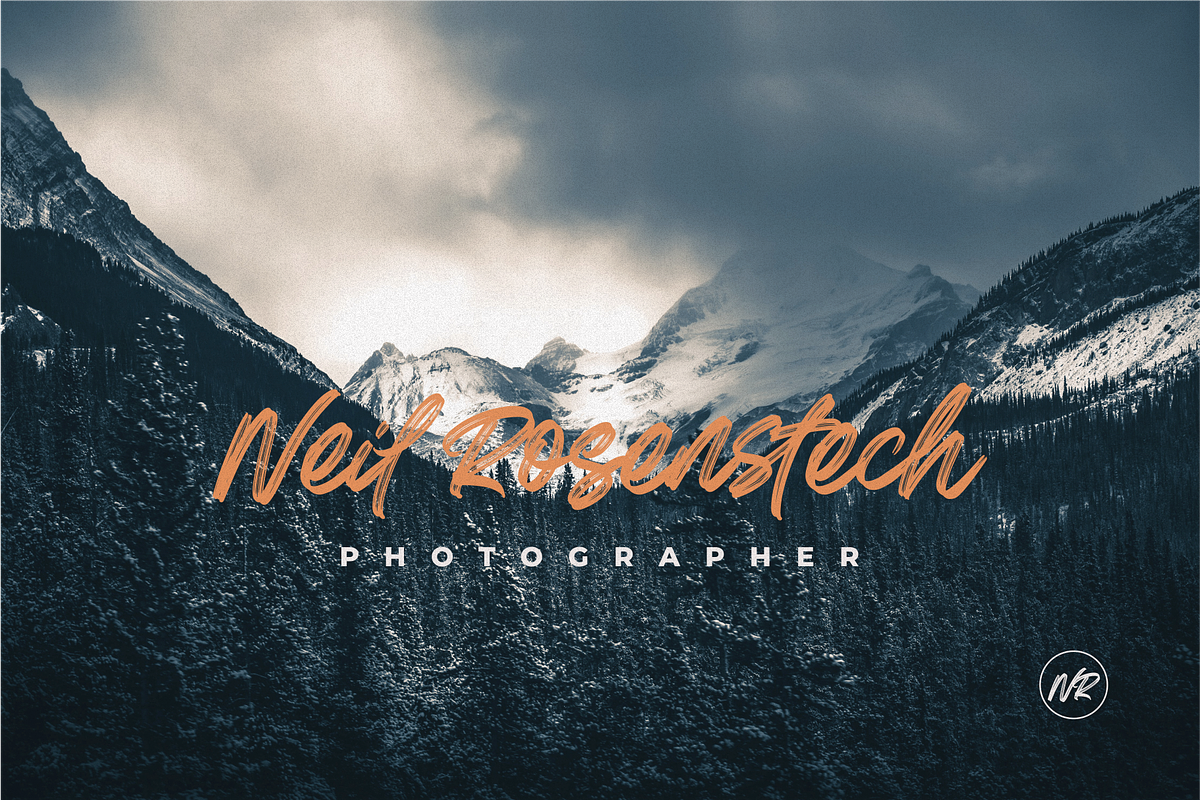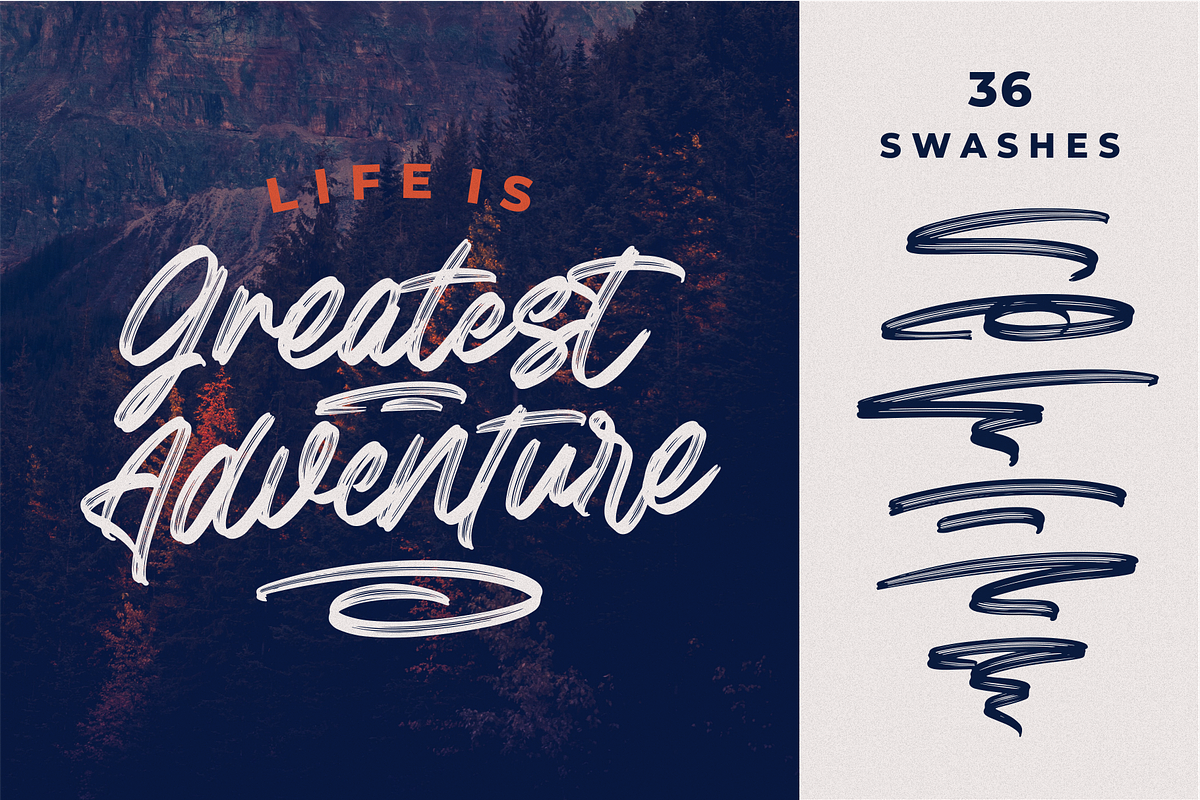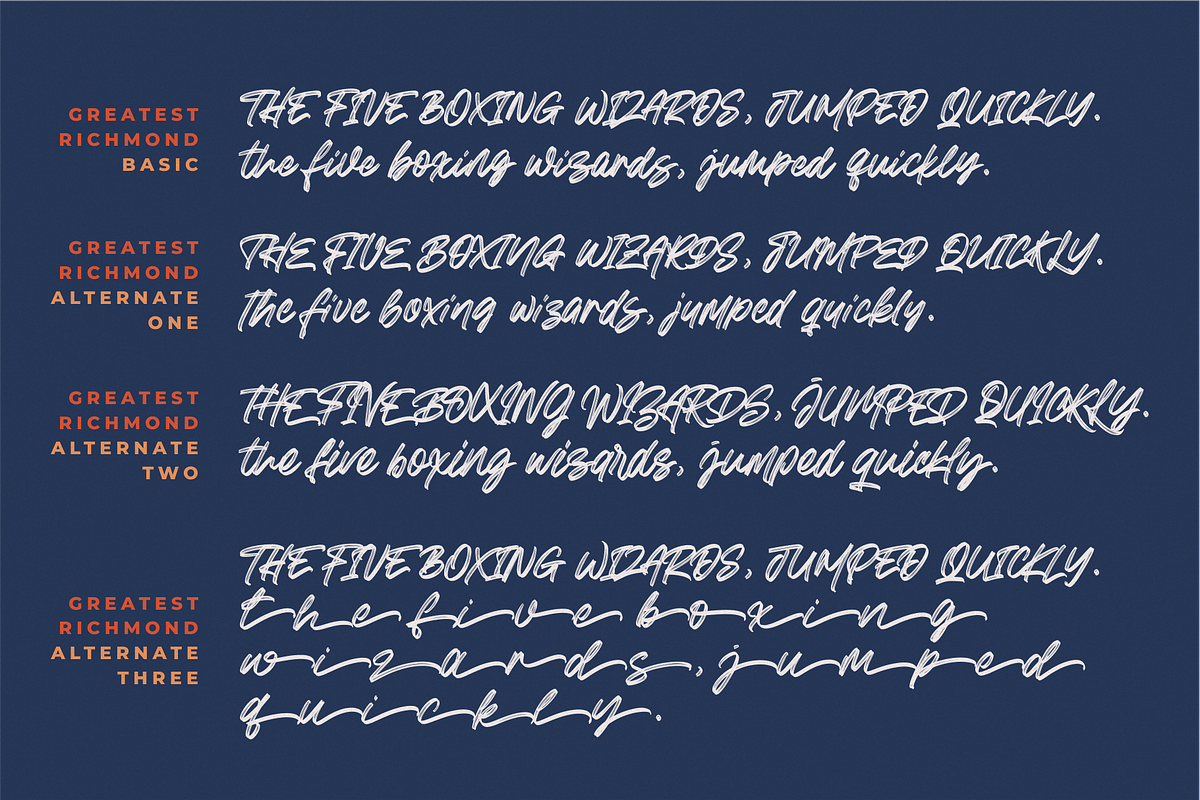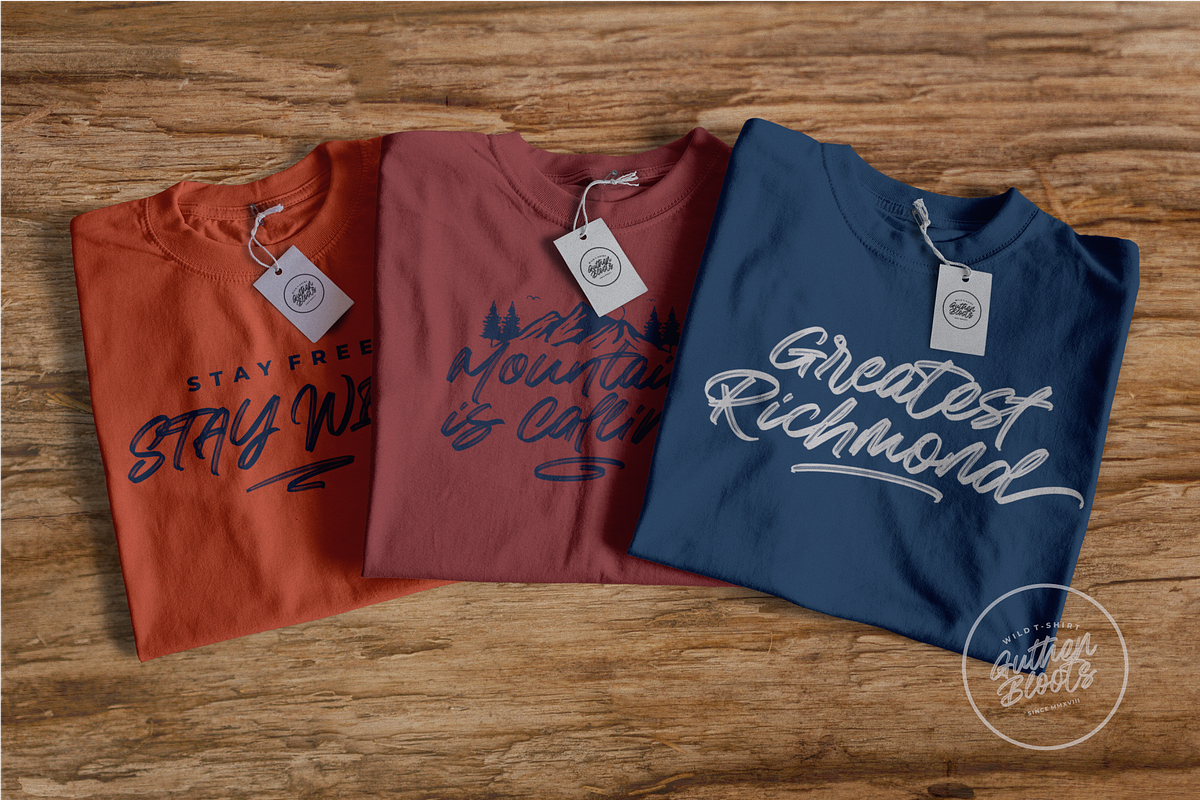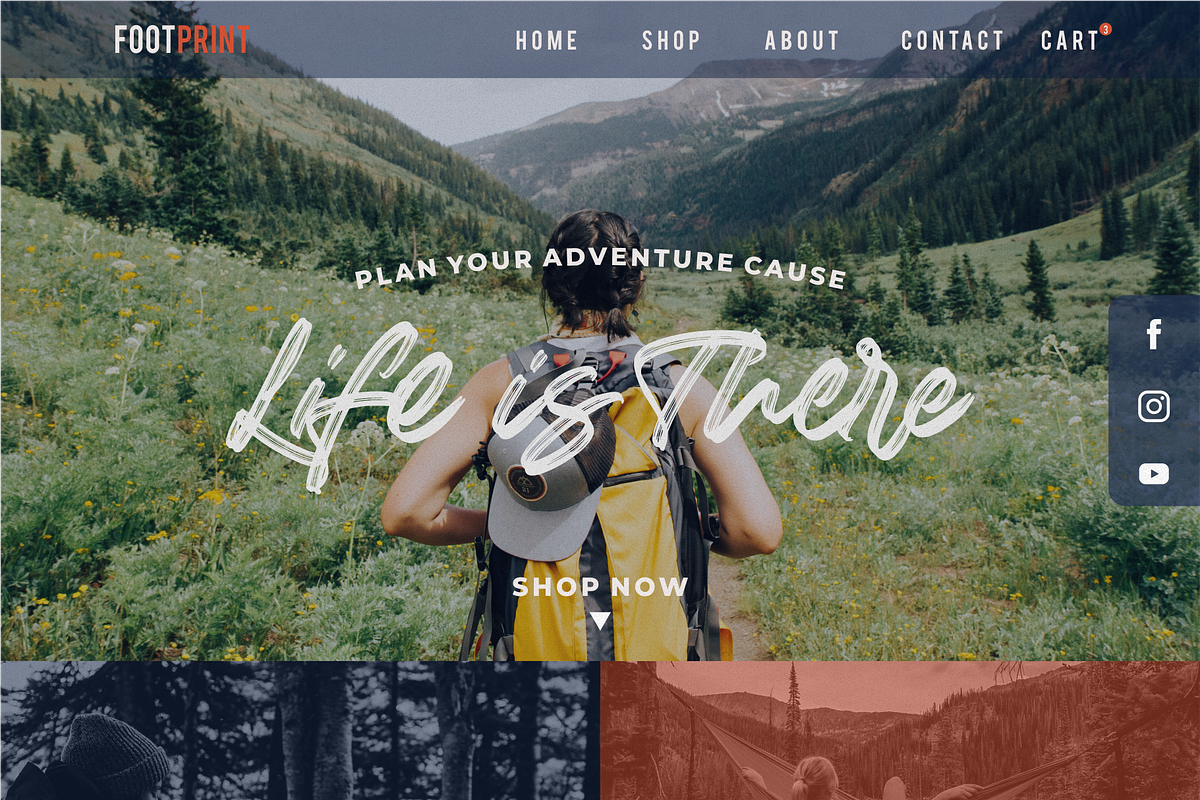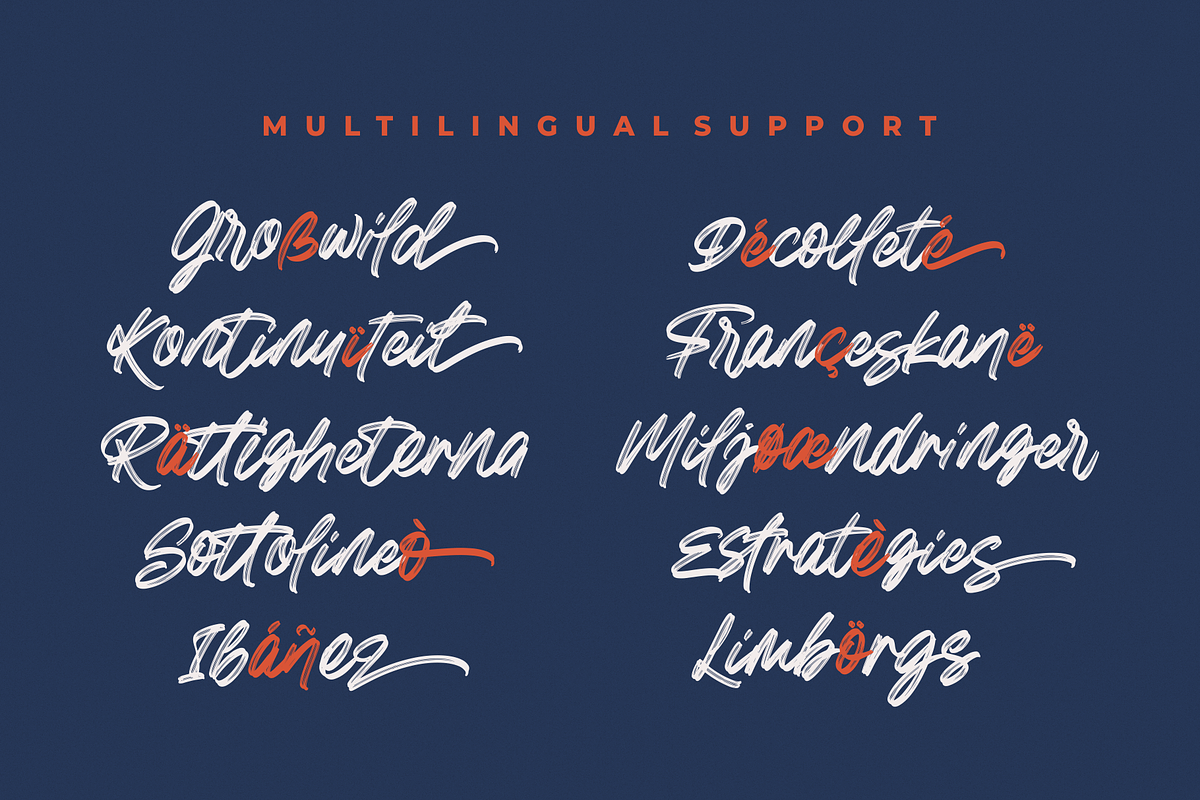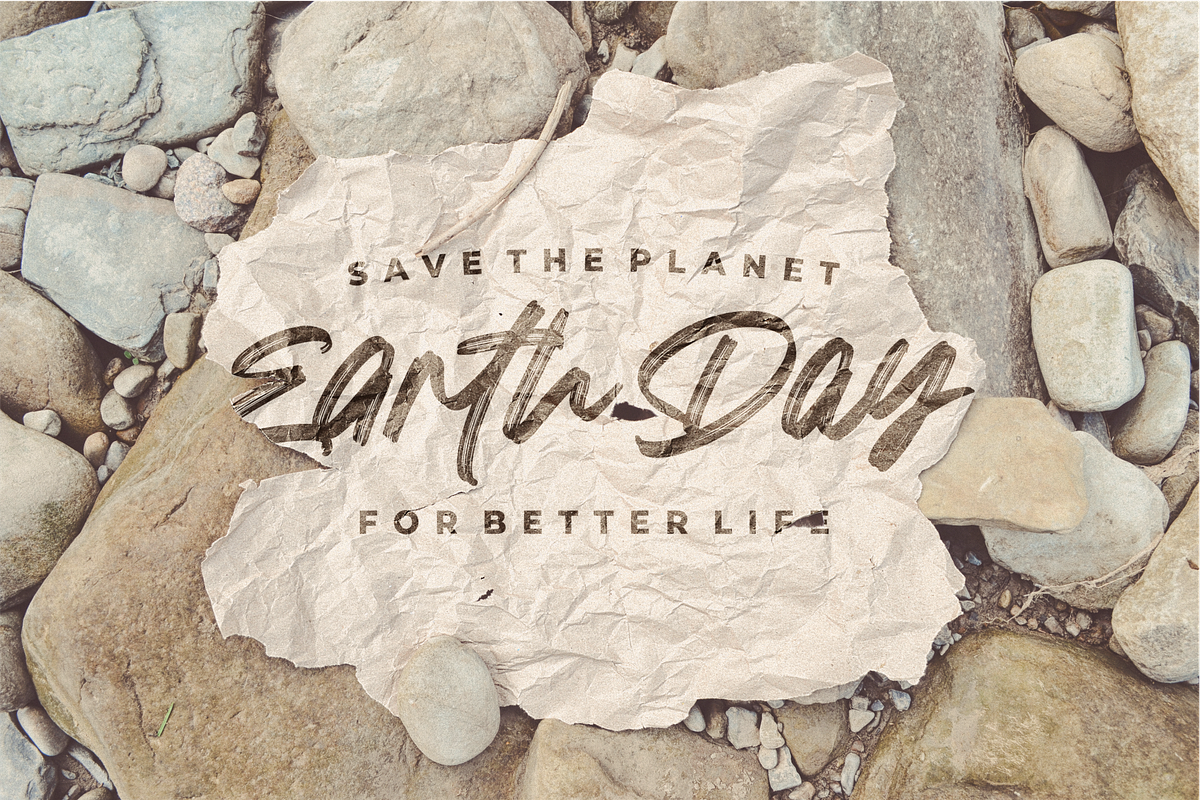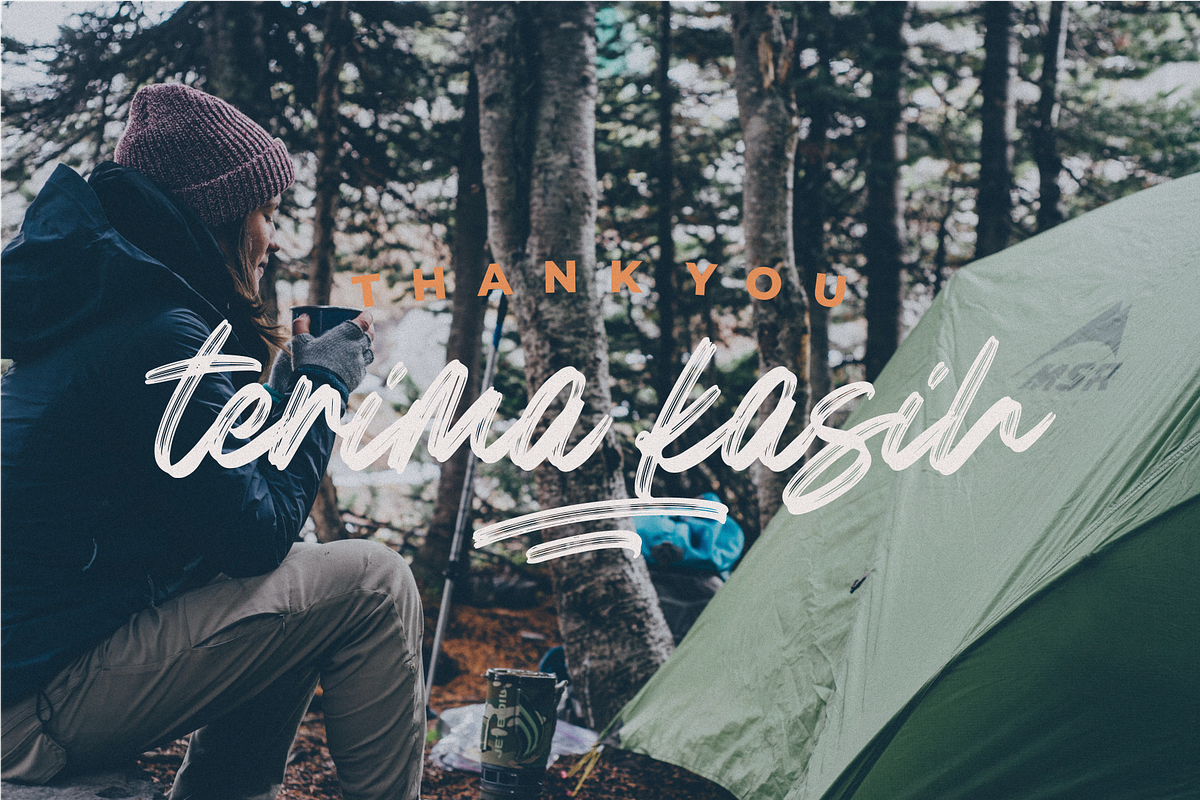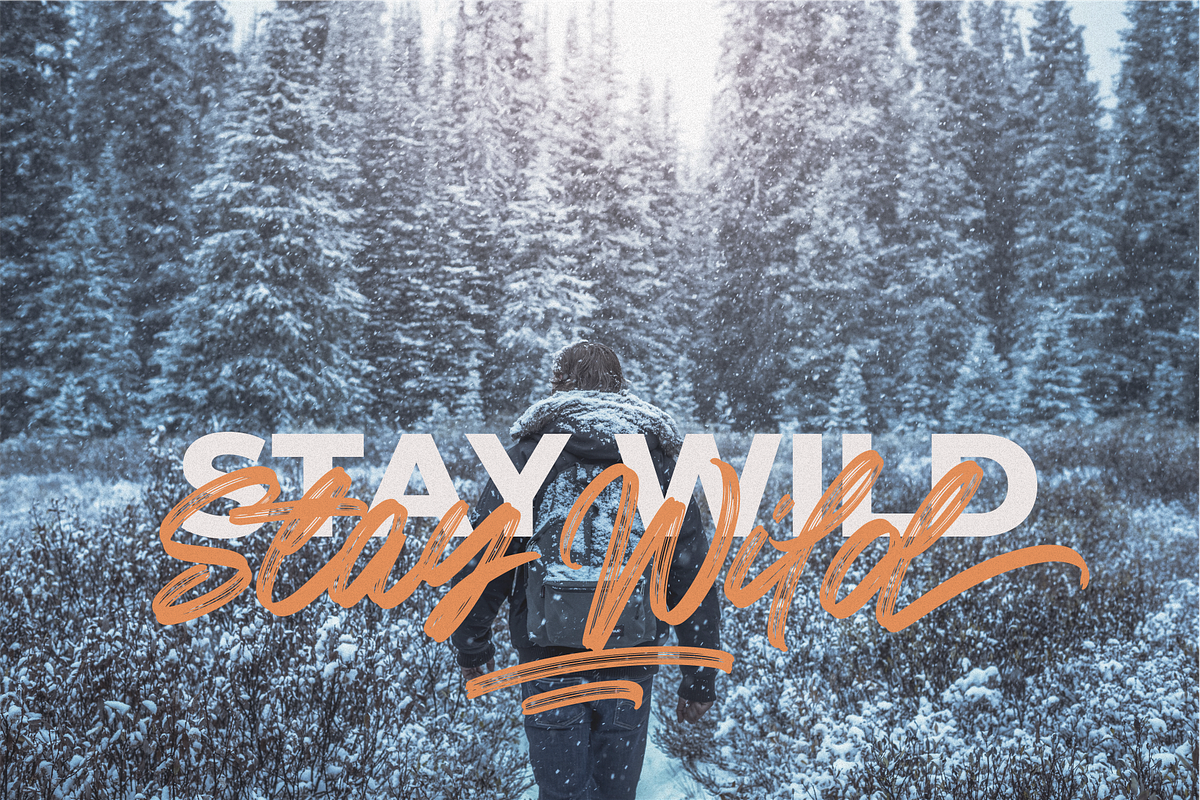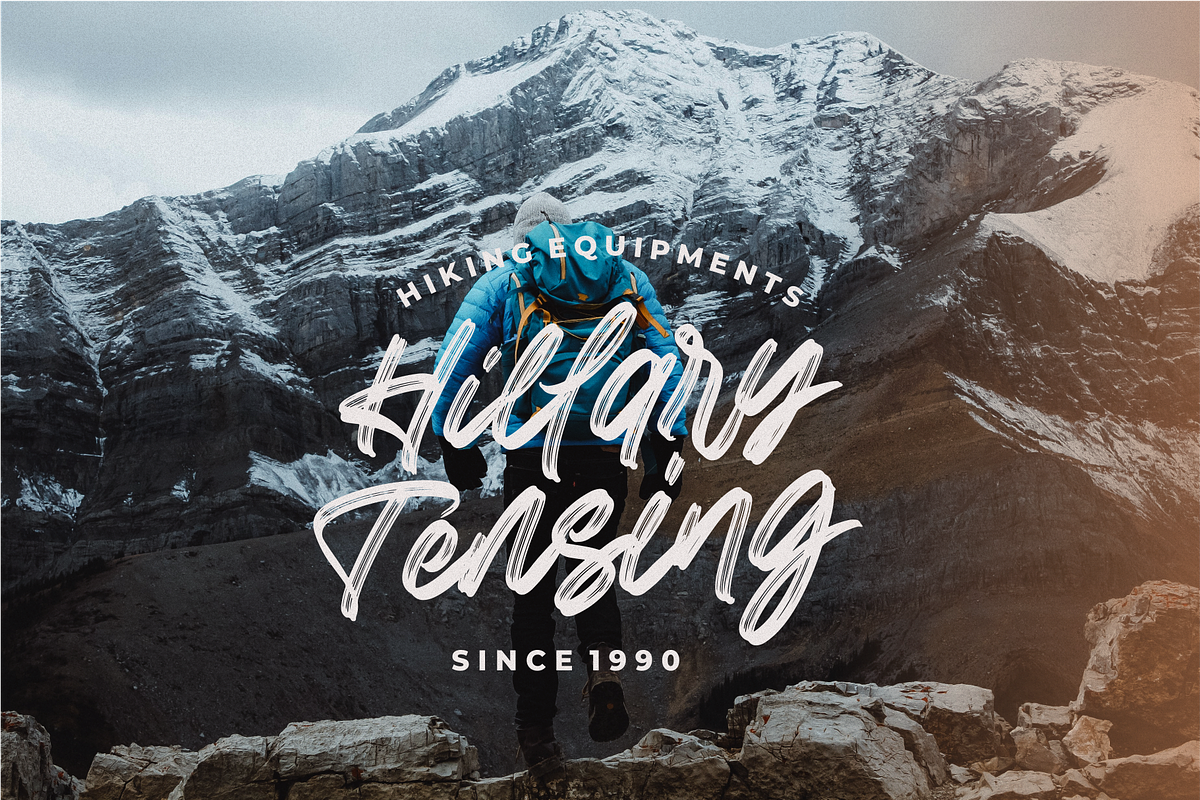
Greatest Richmond + 3 Alternates
Presenting Greatest Richmond! An Authentic Brush Font with 3 alternates and 36 swashes. This font made with the perfect combining of each character. You can type by Mix & Match with alternate version to get a unique combining. It looks original and can be used for all your project needs. Each glyph has its own uniqueness and when meeting with others will provide dynamic and pleasing proximity. This font can be used at any time and any project. You can see in the presentation picture above, Greatest Richmond looks stylish and wildly on design projects.
So, Greatest Richmond can't wait to give its touch to all your design projects such as quotes, poster design, personal branding, promotional materials, website, logotype, product packaging, etc.
Besides that, Greatest Richmond also has some ligature that gives a surprise when you type certain characters combining. The ligatures are ee, ff, ii, nn, oo, rr, ss, st, St, tt, lt, rt, and th.
1. Greatest Richmond Basic • The first version comes with uppercase, lowercase, ligatures, numeral, punctuation, symbols, and Standard Latin Multilingual Support (Afrikaans, Albanian, Catalan, Danish, Dutch, English, French, German, Icelandic, Indonesian, Italian, Malay, Norwegian, Portuguese, Spanisch, Swedish, Zulu, and More). You can also access all alternates by Opentype Features.
2. Greatest Richmond Alternate One • The first version comes with uppercase, lowercase, ligatures, numeral, punctuation, symbols, and Standard Latin Multilingual Support (Afrikaans, Albanian, Catalan, Danish, Dutch, English, French, German, Icelandic, Indonesian, Italian, Malay, Norwegian, Portuguese, Spanisch, Swedish, Zulu, and More).
3. Greatest Richmond Alternate Two • The first version comes with uppercase, lowercase, ligatures, numeral, punctuation, symbols, and Standard Latin Multilingual Support (Afrikaans, Albanian, Catalan, Danish, Dutch, English, French, German, Icelandic, Indonesian, Italian, Malay, Norwegian, Portuguese, Spanisch, Swedish, Zulu, and More).
3. Greatest Richmond Alternate Three • The first version comes with uppercase, lowercase, numeral, punctuation, symbols, and Standard Latin Multilingual Support (Afrikaans, Albanian, Catalan, Danish, Dutch, English, French, German, Icelandic, Indonesian, Italian, Malay, Norwegian, Portuguese, Spanisch, Swedish, Zulu, and More).
3. Greatest Richmond Swash • The first version comes with 36 Swashes. You can feature all with typing A-Z, a-z, and 0-9